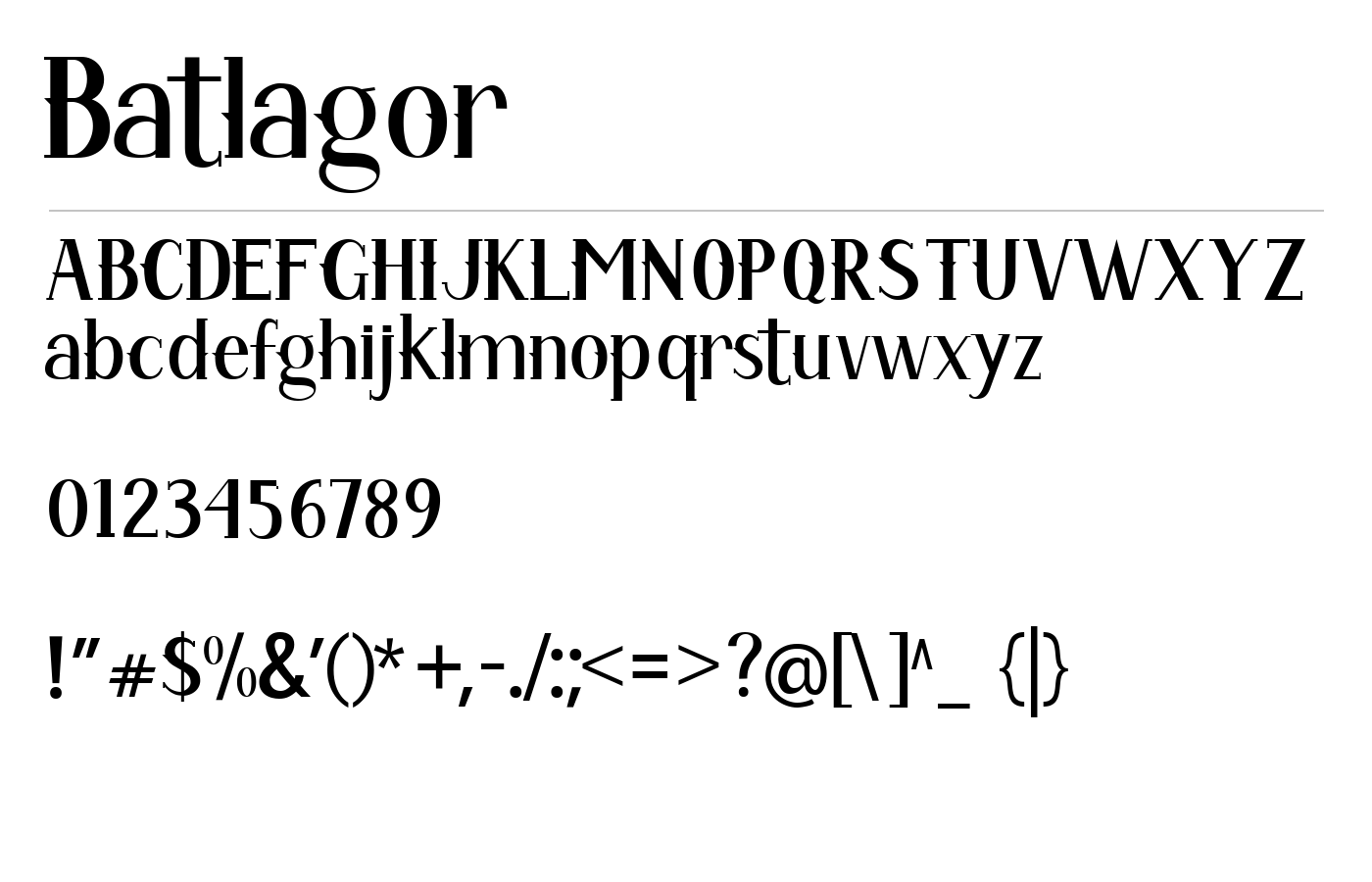
Batlagor is a condensed serif font with a modern, elegant feel characterized by high contrast between thick and thin strokes and sharp, unbracketed serifs. Its tall x-height and distinct letterforms give it a sophisticated and refined appearance, making it ideal for stylish logos, editorial headlines, and fashion branding where a strong, upscale presence is desired. This font balances classic serif qualities with a contemporary twist, perfect for projects needing a bold yet graceful touch.
Batlagor Font
About Batlagor Font
| Font family | Batlagor Font |
| Designer | ARTO STUDIO |